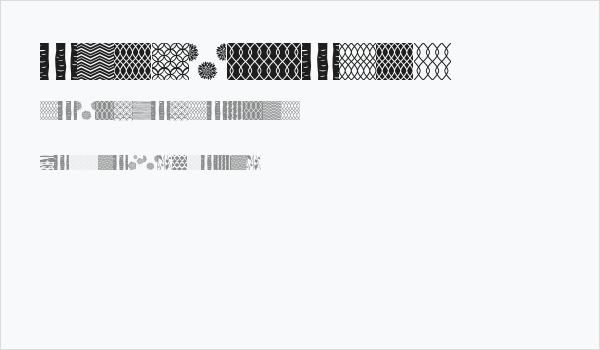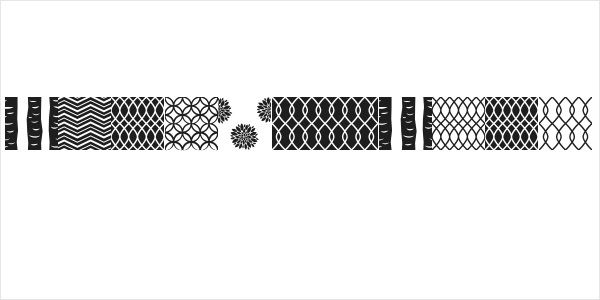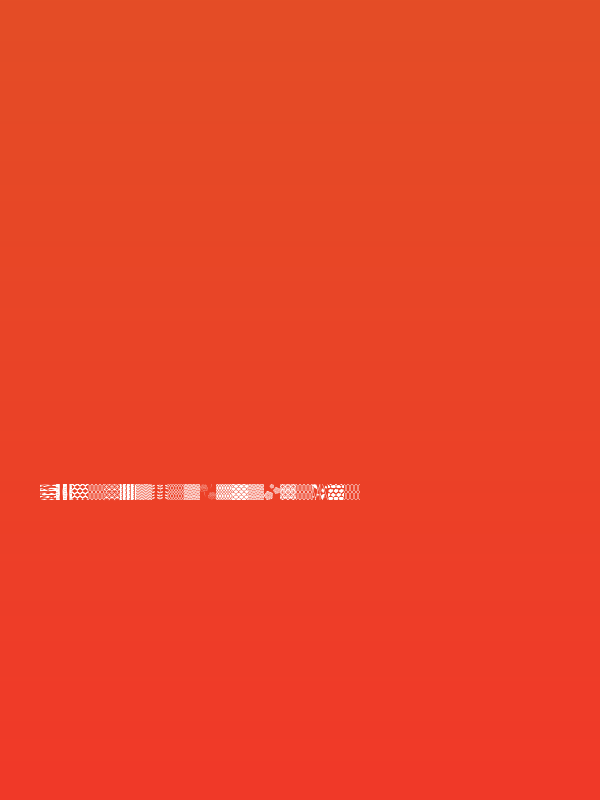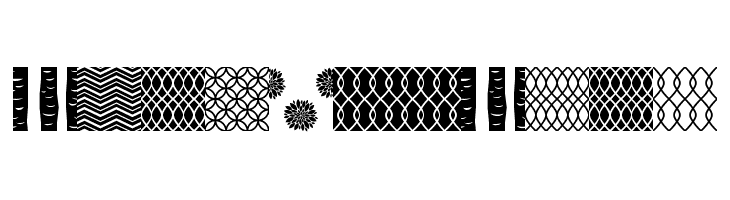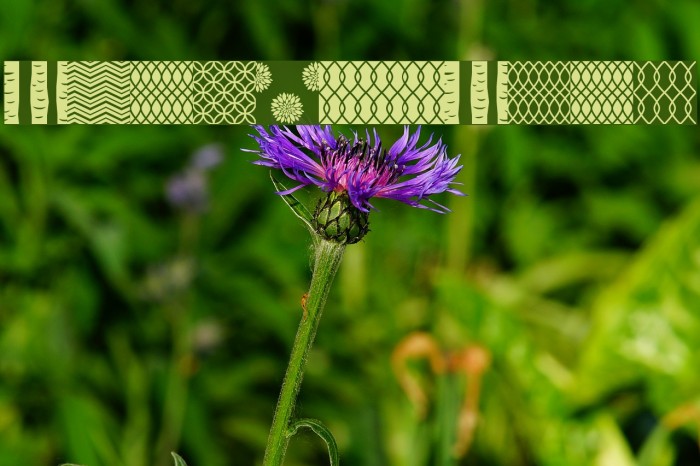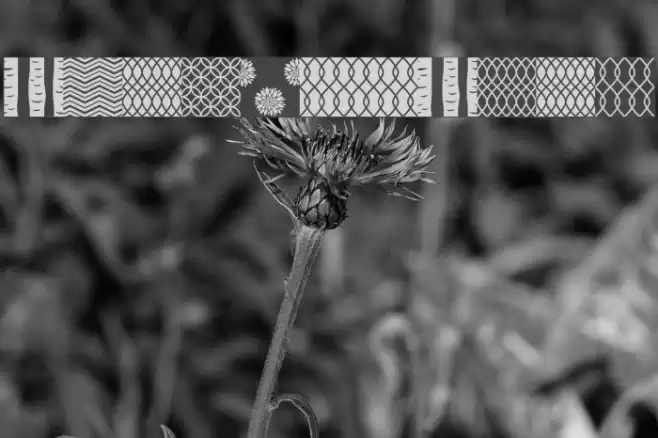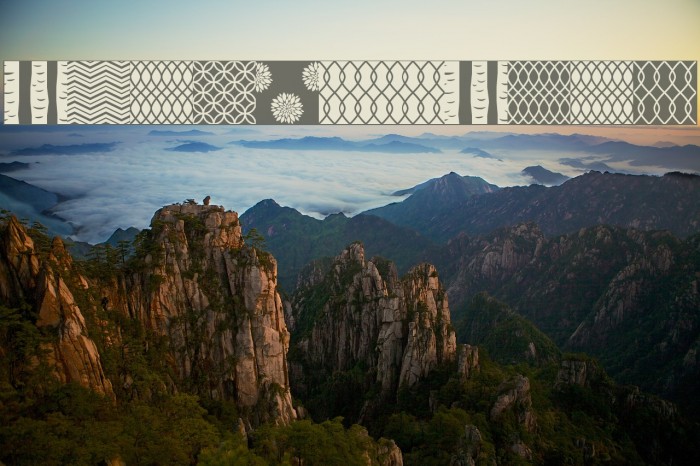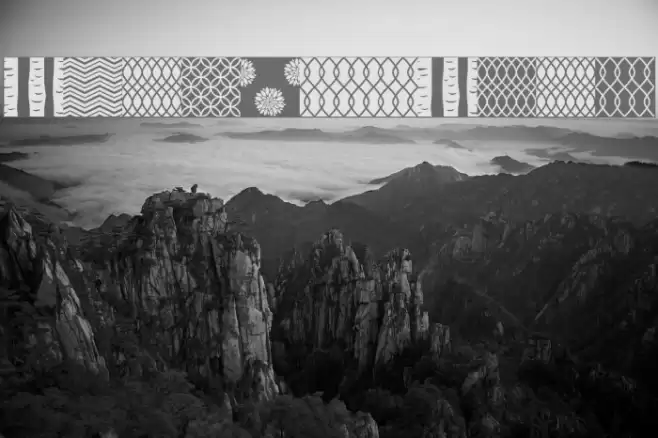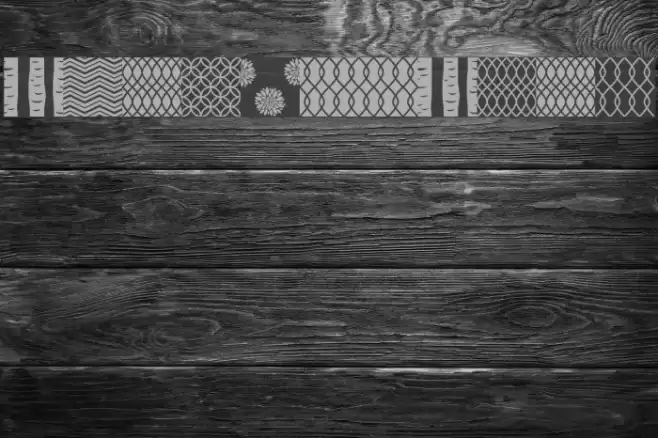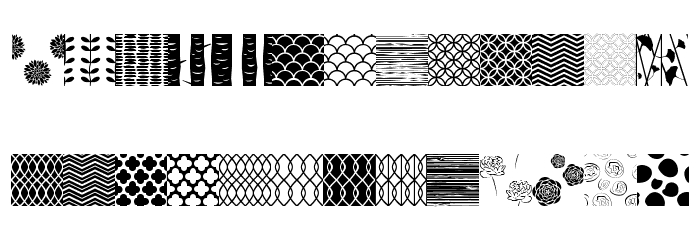
Peoni Patterns Font
A collection of hand-drawn, black and white decorative patterns and floral motifs, featuring geometric shapes, organic lines, and whimsical textures. Each character is represented by a unique pattern or illustration rather than a traditional letterform.
| Overall Style | Decorative, Hand-drawn, Whimsical |
| Use Case | Decorative elements, backgrounds, borders, embellishments. |
| Proposed Projects | Scrapbooking, invitations, textile design, digital backgrounds, decorative borders, craft projects. |